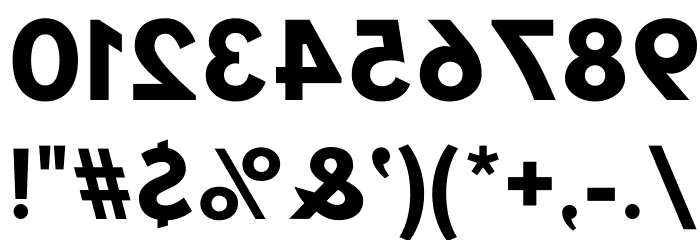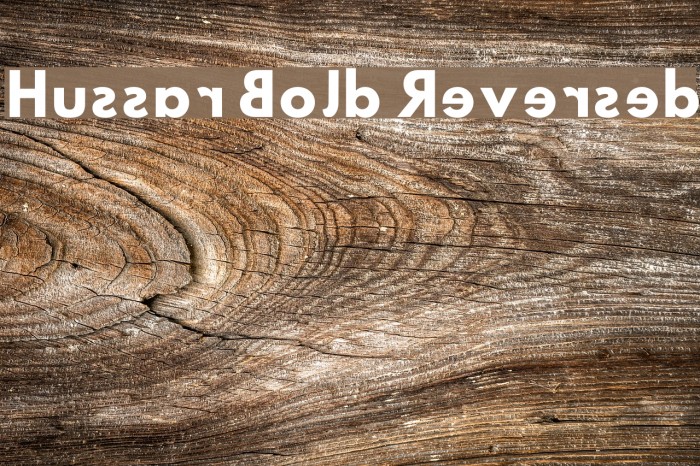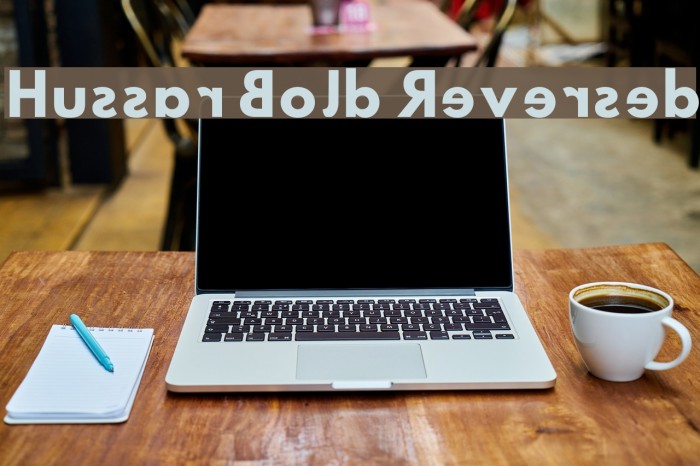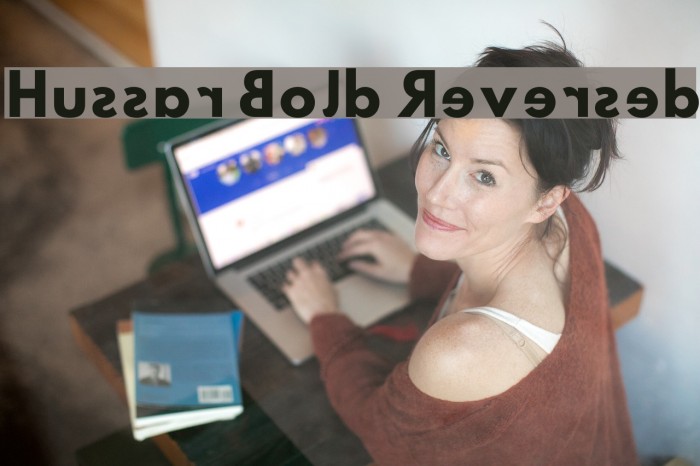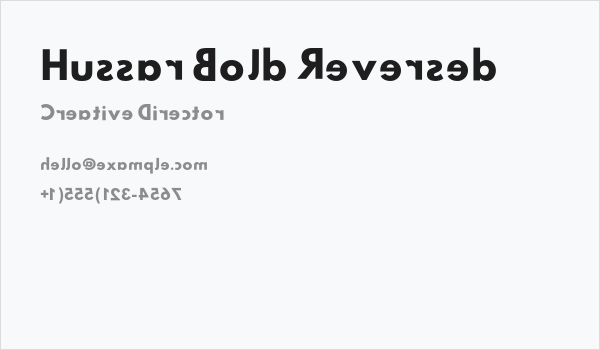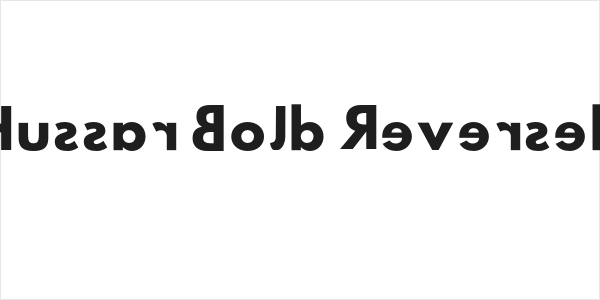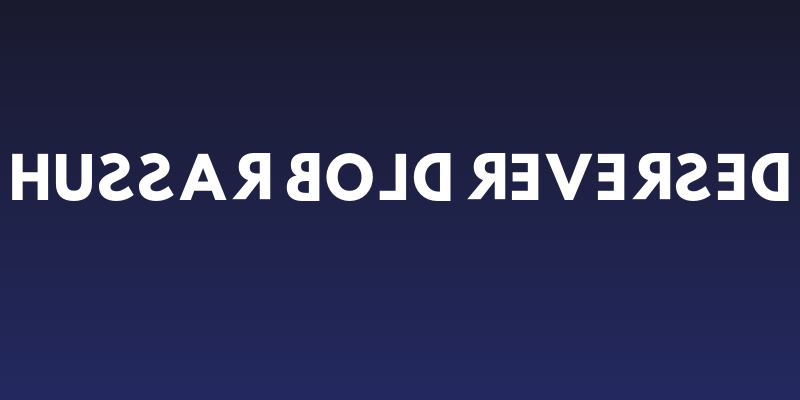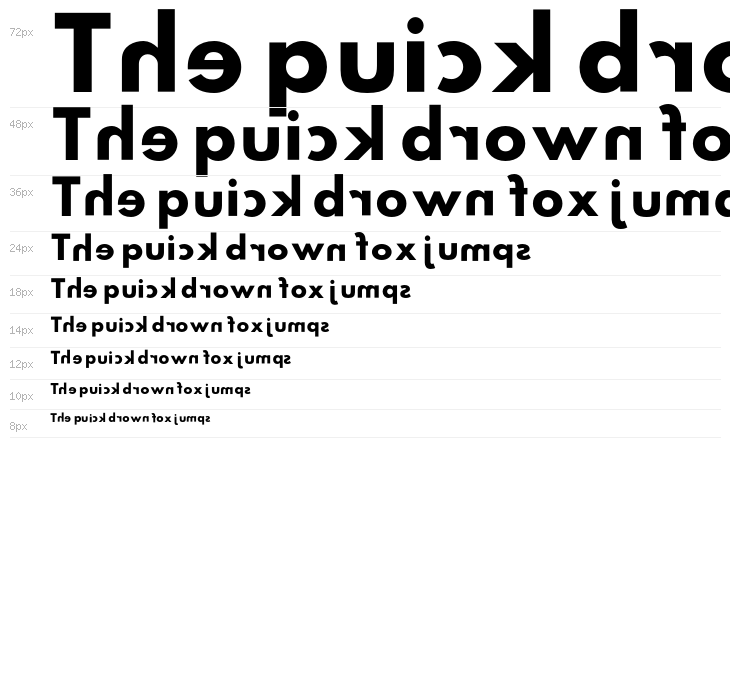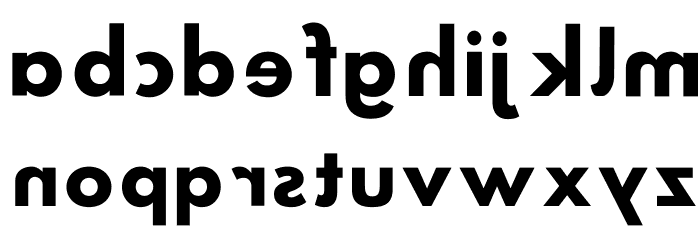
Hussar Bold Reversed Font
Hussar Bold Reversed Description
This font features bold, geometric letterforms with a strong presence. The characters are designed with a modern aesthetic, showcasing clean lines and a uniform thickness throughout. The uppercase and lowercase letters maintain a consistent style, with sharp angles and a slightly condensed appearance. The numerals and special characters complement the overall design, providing a cohesive look. This font's boldness and clarity make it suitable for impactful designs.
| Proposed Projects | Ideal for branding, posters, headlines, and any project requiring a strong visual impact. |